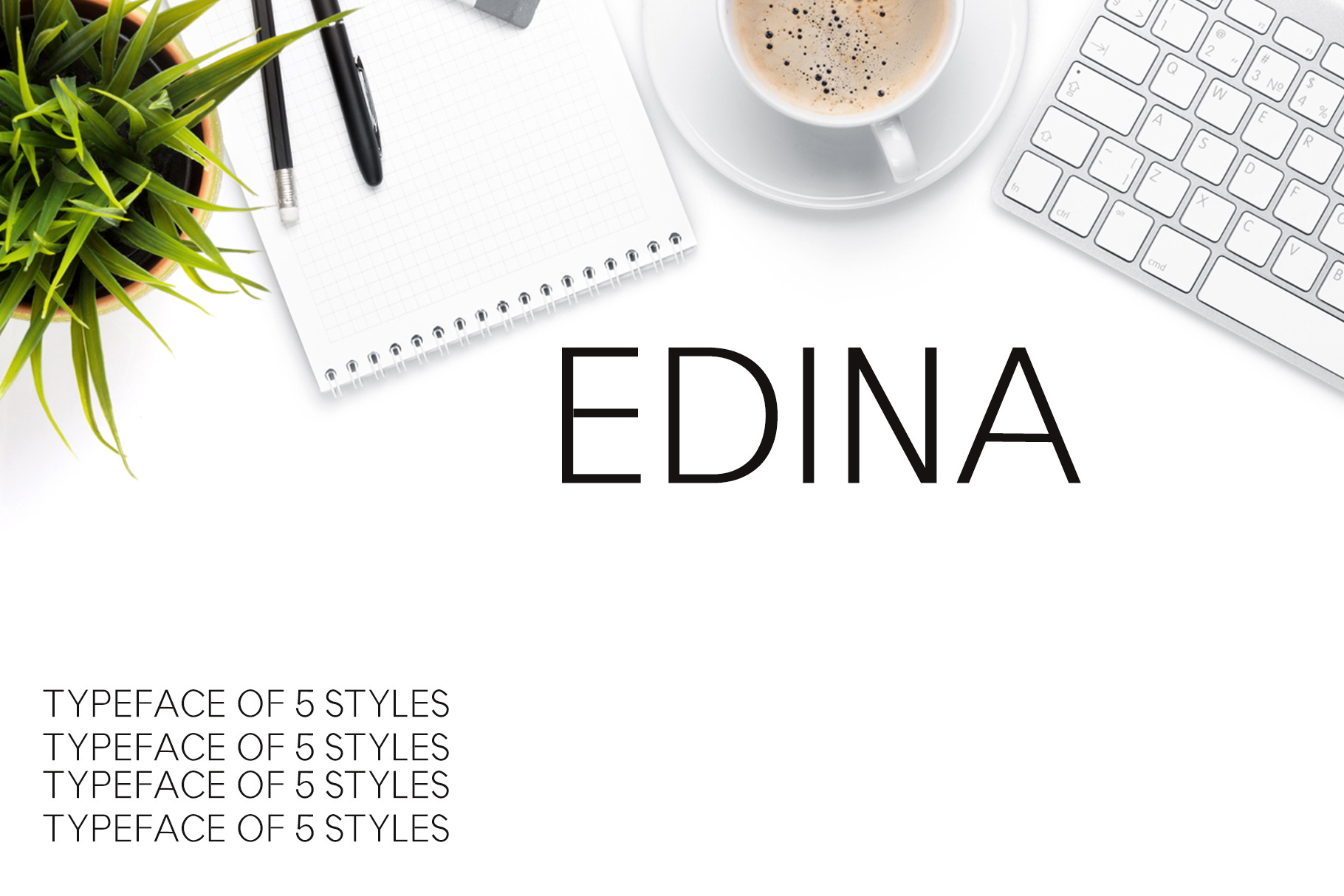
Edina Sans Serif Minimal Font Pack
Edina Sans Serif Font is a clean but significant with modern touch. It is available in 5 quality weights. This font will pair beautifully with the script, signature or handwriting style. This font can be used for headlines, posters, branding, packaging, presentations, logo, quotes, titles, magazines headings, web layouts, advertising, invitations, packaging design, books, and nearly any creative design.
Included Features:
- Regular, Outline, Bold, Extra Bold and Black Weights
Edina Font Features:
- Uppercase Letters
- Lowercase Letters
- Non English Characters ( Latin Supplement + Latin Extended A)